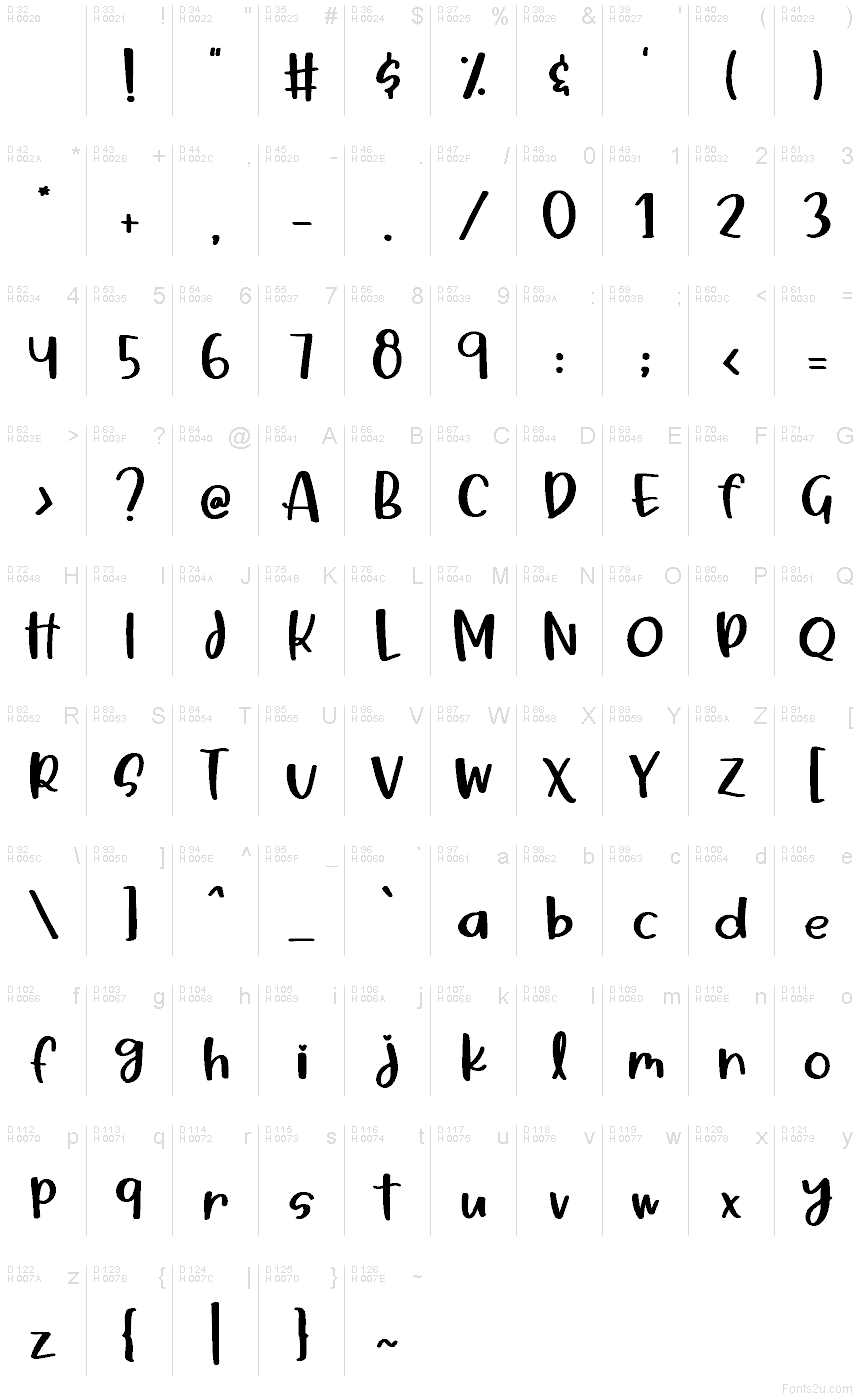
Pink Shine
Pink Shine font by Dm Letter Studio - Dimas Prasetyo is a free brush script font. It leans into thick, inky strokes with a soft, cushiony feel and a lively, slightly bouncy rhythm. Rounded terminals and a playful heart accent give it an unmistakably warm, hand-lettered glow without losing legibility.
Using Pink Shine, headlines immediately feel sweet and social-great for beauty branding, bakery packaging, kids apparel tags, Instagram quotes, stickers, logos, and cheerful invitations. The generous curves hold up at larger sizes; add a touch of tracking for small captions. For balance, pair this free font with a light, rounded sans to keep layouts clean and charming.